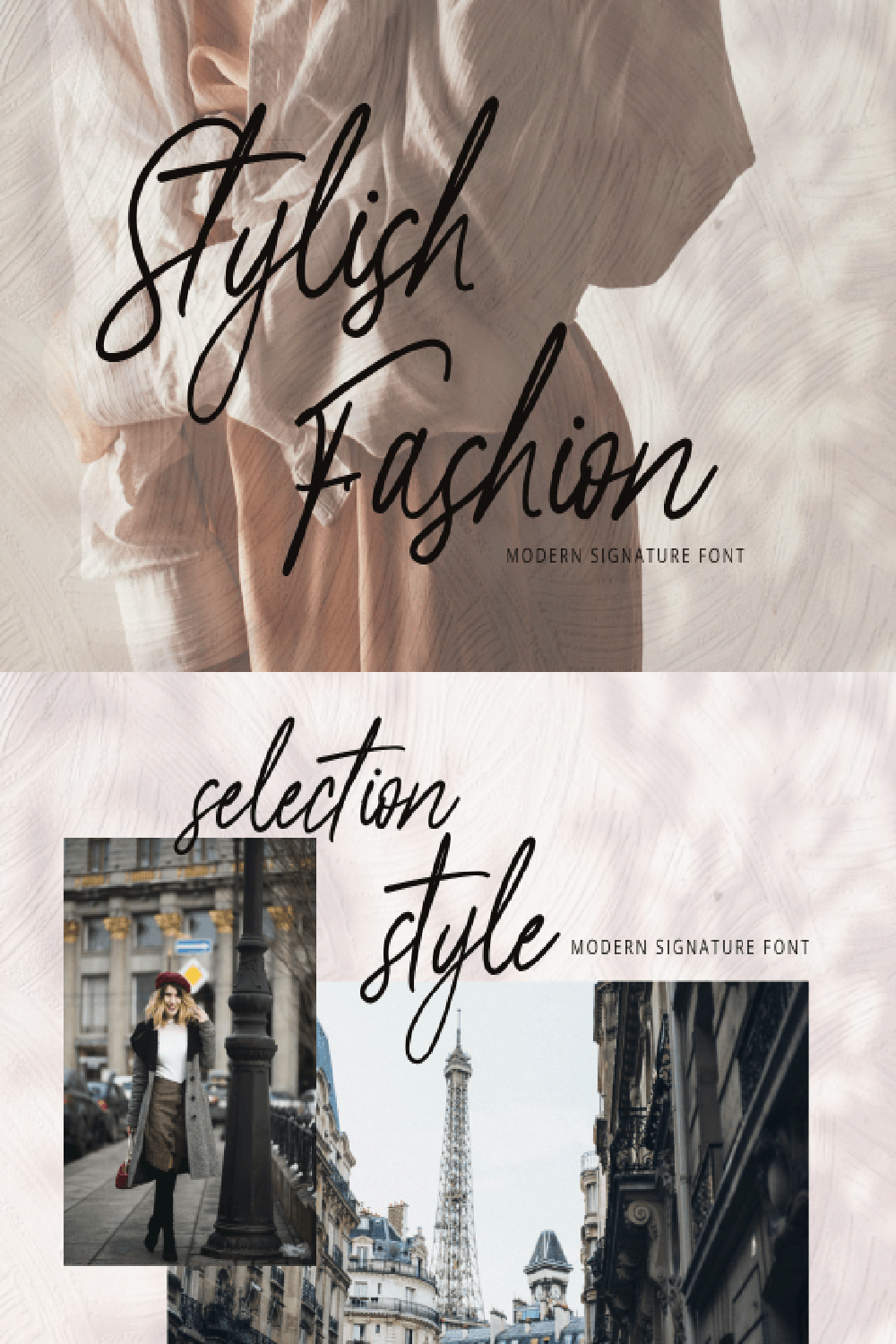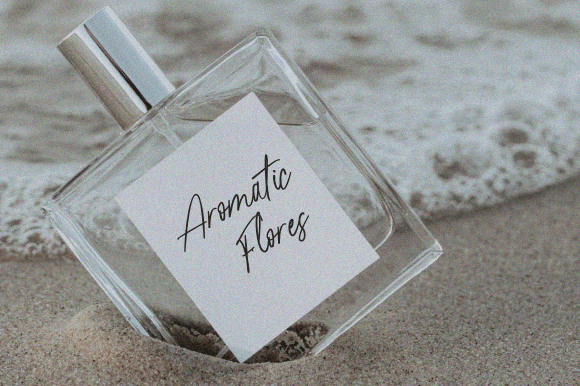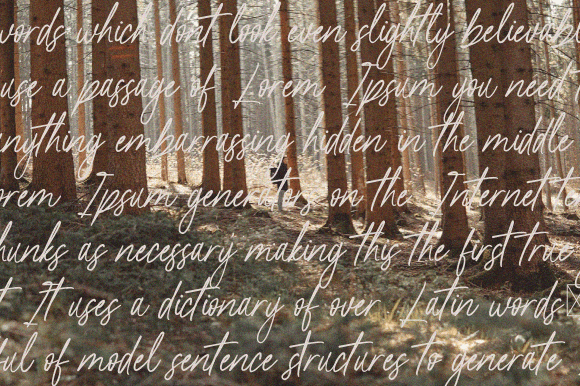
Stylish Fashion Font
About the Stylish Fashion Font
Unleash your creativity with Stylish Fashion Font, a versatile font perfect for a wide range of applications. The “Stylish Fashion” font exudes a charming blend of modern sophistication and elegance. Its sleek, carefully crafted letterforms embody the essence of high fashion, making it an ideal choice for projects that demand a touch of glamor and sophistication.
The character of the font features a harmonious balance between sleek curves and sharp angles, creating a dynamic and graceful visual rhythm. Each letter is carefully designed to convey a sense of modernity, making “Stylish Fashion” the perfect companion to contemporary design efforts.